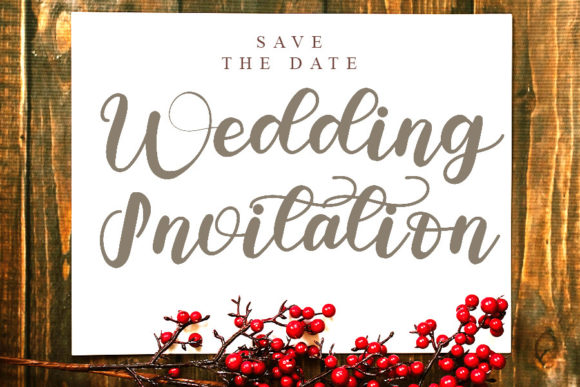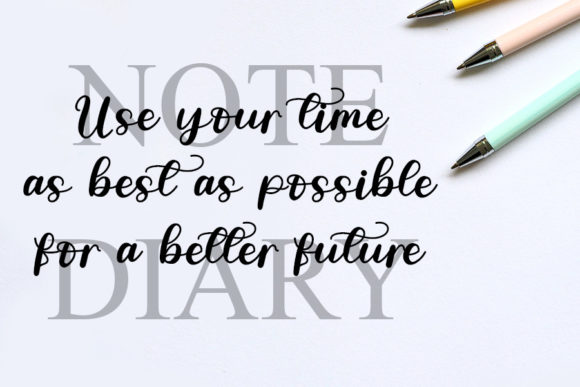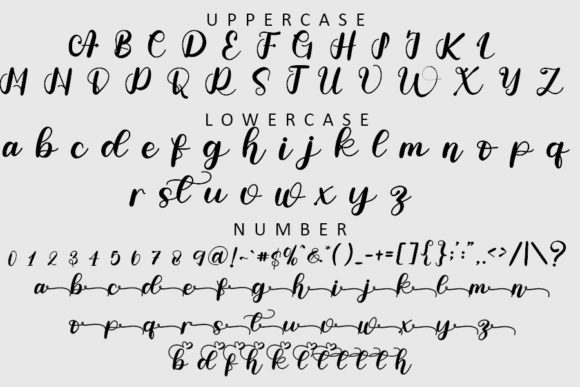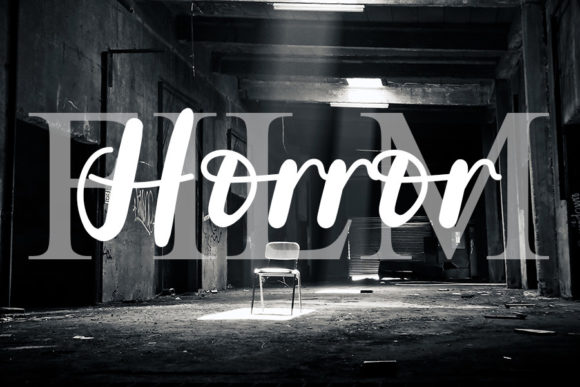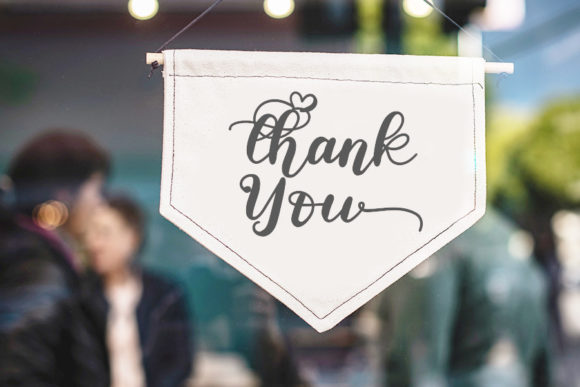
Introducing Adelia Font: Elevate Your Creativity with Elegance
Are you a designer, crafter, or DIY enthusiast looking for a font that can add a touch of magic to your creative projects? Look no further than Adelia Font, a beautiful script font designed to bring elegance and sophistication to your work. In this article, we’ll explore the features and benefits of Adelia Font, and how it can help you turn your creative ideas into stunning works of art.
What is Adelia Font?
Adelia Font is a carefully crafted script font that combines the beauty of calligraphy with the ease of digital design. This magical font is perfect for anyone looking to add a touch of elegance to their projects, whether it’s for Instagram, DIY crafts, or professional design work. With Adelia Font, you can create stunning pieces that are sure to impress.
Key Features of Adelia Font
- PUA Encoding: Adelia Font is PUA (Private Use Area) encoded, which means you can access all the glyphs and swashes with ease. This feature allows you to unlock the full potential of the font and experiment with different styles and combinations.
- Elegant Script Design: Adelia Font boasts a beautiful, flowing script design that’s perfect for creating eye-catching headlines, captions, and quotes.
- Versatility: Whether you’re designing for Instagram, creating DIY crafts, or working on professional projects, Adelia Font is the perfect choice.
Benefits of Using Adelia Font
So, why choose Adelia Font for your creative projects? Here are just a few benefits you can expect:
- Add a Touch of Elegance: Adelia Font brings a level of sophistication and elegance to your designs, making them stand out from the crowd.
- Increase Creativity: Adelia Font’s versatility and range of glyphs and swashes inspire creativity and experimentation, helping you to push the boundaries of your design work.
- Perfect for DIY Projects: Adelia Font is ideal for DIY enthusiasts, providing a professional-looking font for crafts, scrapbooking, and other creative projects.
Who Can Benefit from Adelia Font?
Adelia Font is perfect for a wide range of designers, crafters, and DIY enthusiasts, including:
- Graphic Designers: Add a touch of elegance to your designs and take your work to the next level.
- Instagram Influencers: Stand out on Instagram with Adelia Font’s beautiful script design.
- DIY Crafters: Elevate your DIY projects with a professional-looking font.
- Scrapbookers: Add a touch of sophistication to your scrapbooking projects.